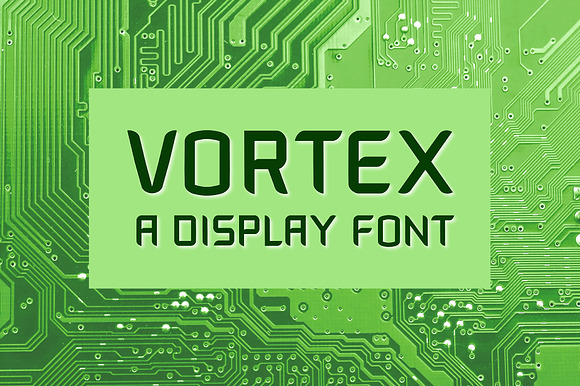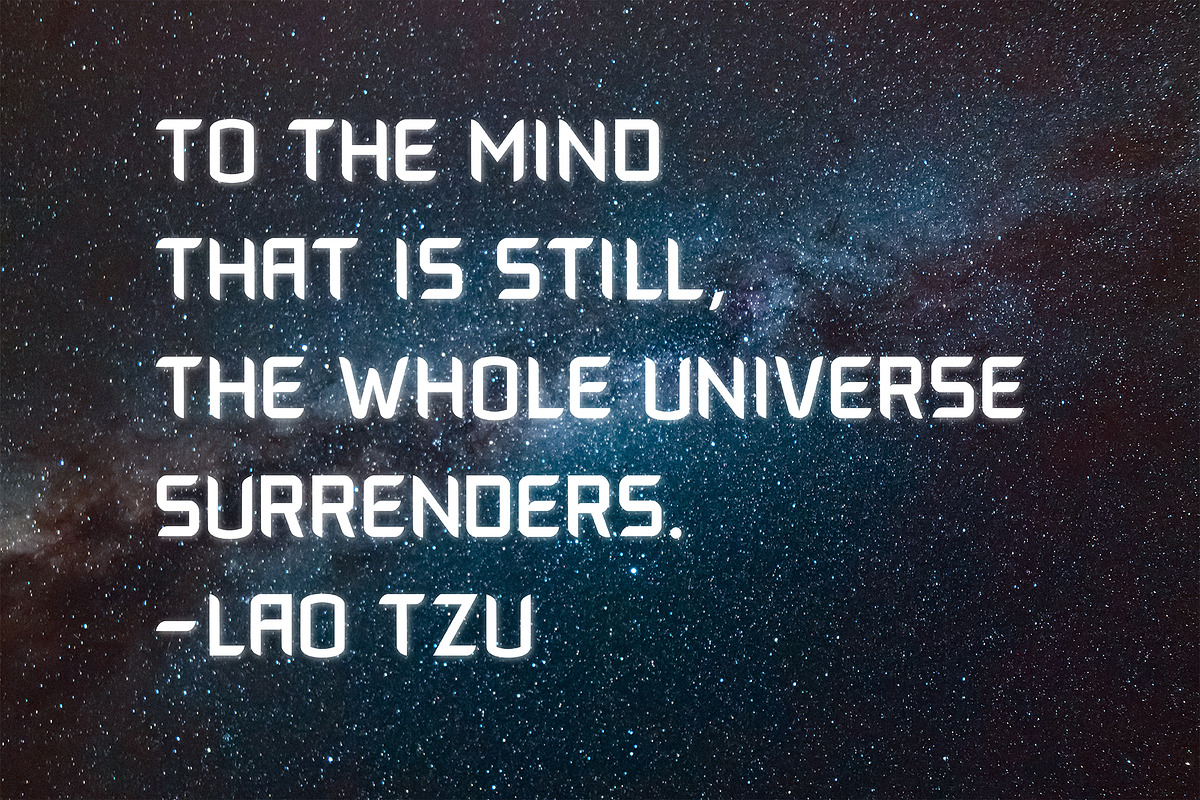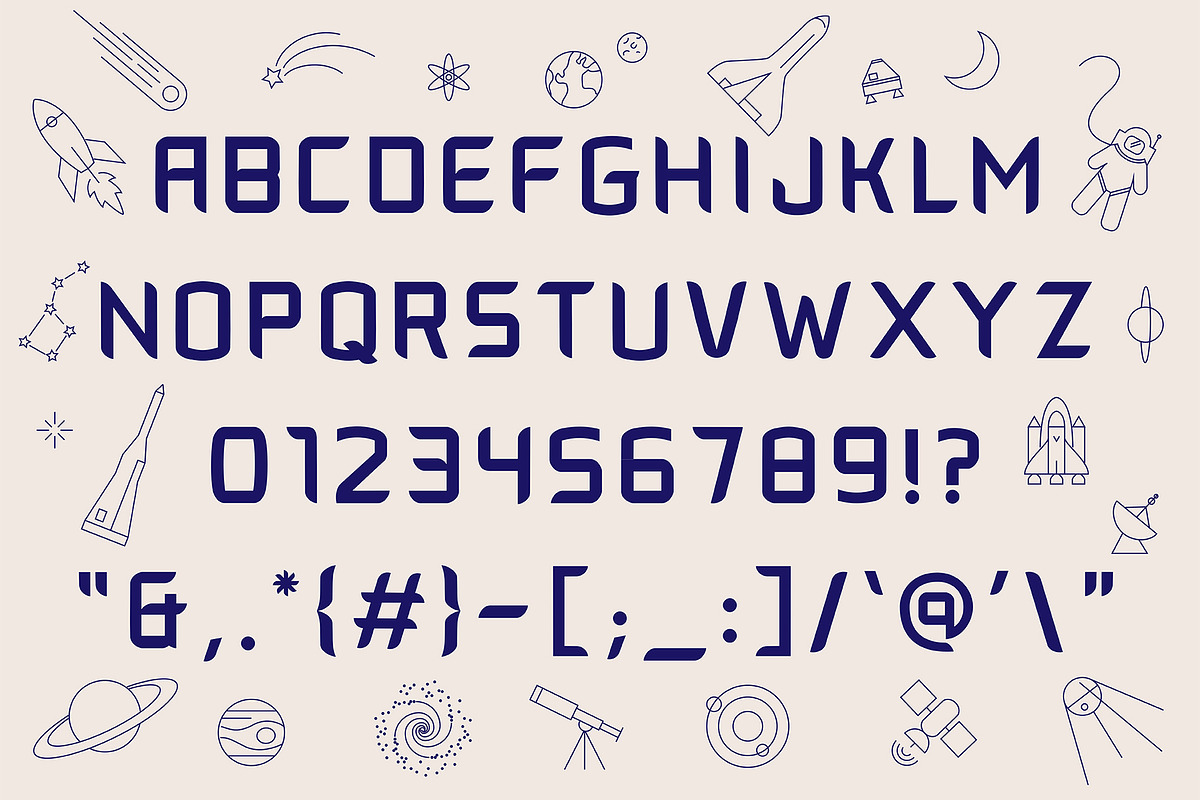
Vortex: A Display Font + Free Icons
Hey there! I'm proud to present Vortex, a display typeface made with science and tech headlines in mind. Just for fun, I've also thrown in a freebie outer space icon set!